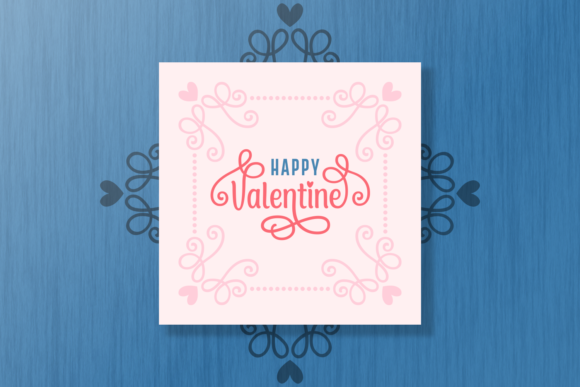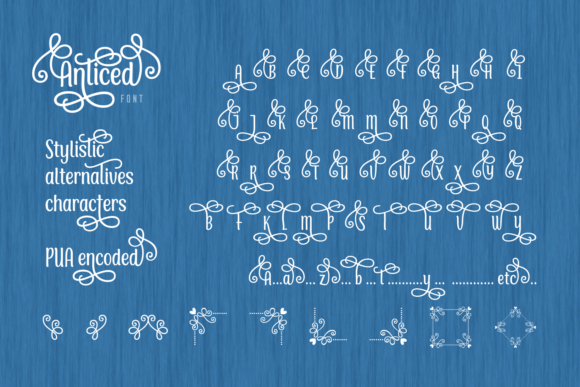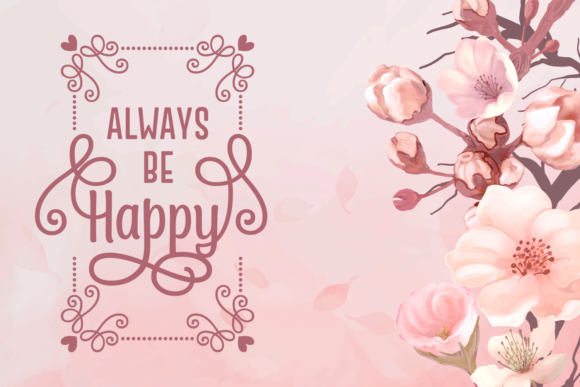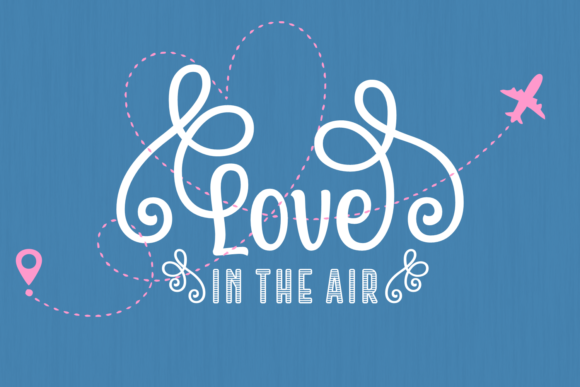
Introducing Anticed Font: The Sweet and Soft Hand-Lettered Script for Stunning Crafts
Are you a designer or crafter looking for a unique and playful font to elevate your creative projects? Look no further than Anticed Font, a sweet and soft hand-lettered script that’s perfect for creating stunning crafts, art, and designs. With its rounded characters and authentic feel, Anticed is sure to capture your heart and inspire your creativity.
The Playful and Rounded Characters of Anticed
Anticed Font boasts playful rounded characters that make it an ideal choice for a wide range of creative projects. Its soft and gentle appearance is perfect for designs that require a touch of warmth and personality. Whether you’re creating wedding invitations, stationary art, social media posts, or greeting cards, Anticed’s rounded characters will add a delightful and charming touch to your work.
PUA Encoded Swashes for Added Decorative Touch
One of the standout features of Anticed Font is its PUA (Private Use Area) encoded swashes. These swashes allow you to add a decorative touch to your designs within seconds, giving you the flexibility to create unique and eye-catching projects. With Anticed’s swashes, you can add a touch of elegance, whimsy, or playfulness to your designs, making them truly special and one-of-a-kind.
Ideal for a Wide Range of Creative Projects
Anticed Font is an incredibly versatile font that’s suitable for a wide range of creative projects, including:
- Wedding Invitations: Create beautiful and elegant wedding invitations that set the tone for a special day.
- Stationary Art: Design stunning stationary art, including notebooks, journals, and planners, that showcase your creativity.
- Social Media Posts: Add a touch of personality to your social media posts and make them stand out from the crowd.
- Greeting Cards: Create cute and charming greeting cards for special occasions, such as birthdays, holidays, and anniversaries.
Why Choose Anticed Font?
So, why choose Anticed Font for your creative projects? Here are just a few reasons:
- Unique and Playful: Anticed Font offers a unique and playful design that’s sure to capture attention.
- Easy to Use: With its PUA encoded swashes, Anticed Font is easy to use and allows you to add a decorative touch to your designs quickly.
- Versatile: Anticed Font is suitable for a wide range of creative projects, making it a great addition to your font library.
- High-Quality: Anticed Font is a high-quality font that’s designed to deliver exceptional results.
In conclusion, Anticed Font is a sweet and soft hand-lettered script that’s perfect for creating stunning crafts, art, and designs. With its playful rounded characters, PUA encoded swashes, and authentic feel, Anticed is sure to inspire your creativity and elevate your creative projects. Whether you’re a designer or crafter, Anticed Font is an excellent choice for anyone looking to add a touch of personality and whimsy to their work.